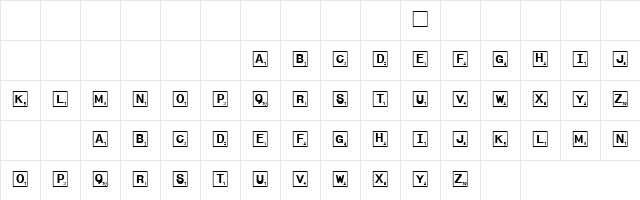
Tilez Normal Font Preview
Tilez Normal
Tilez Normal Font Details
Design Context for Tilez Typeface
Tilez offers clean, dependable letterforms without strong stylistic allegiance, making it a practical choice for designers who need flexibility.
Pro Tip: Pair Tilez with a font of contrasting weight or personality to build a more expressive typographic hierarchy.